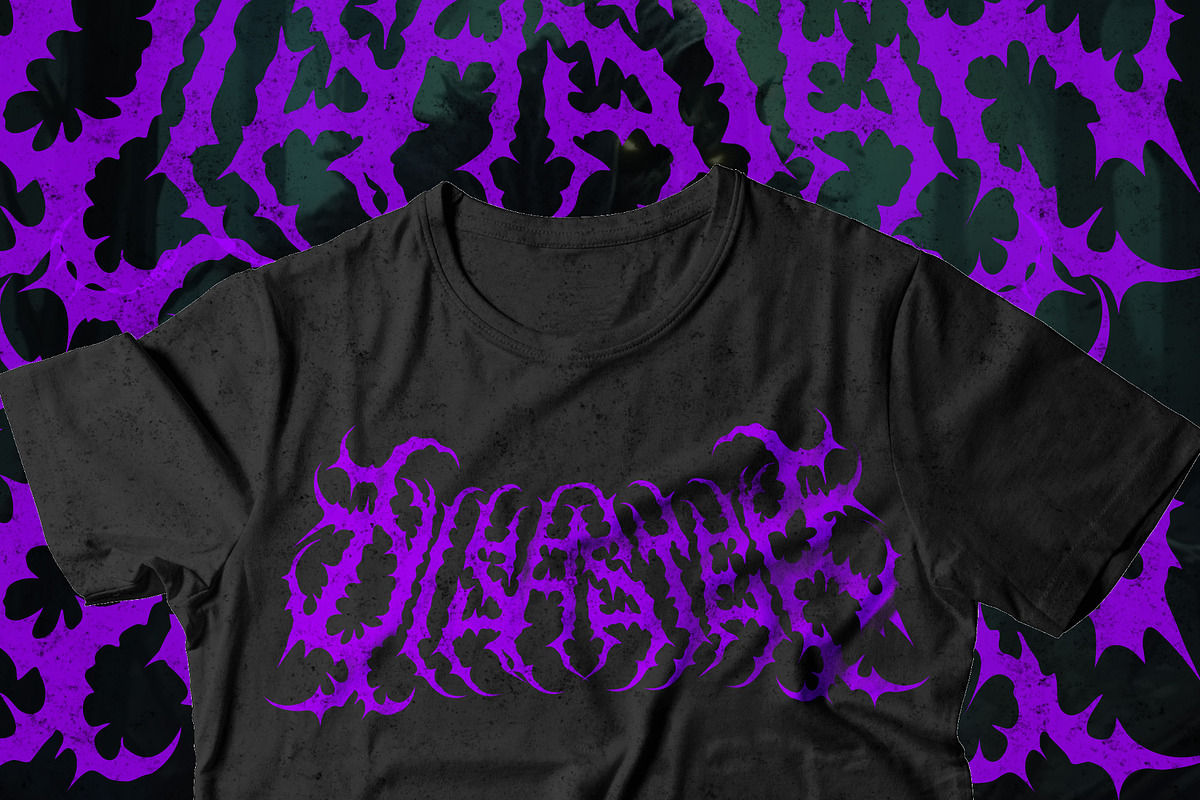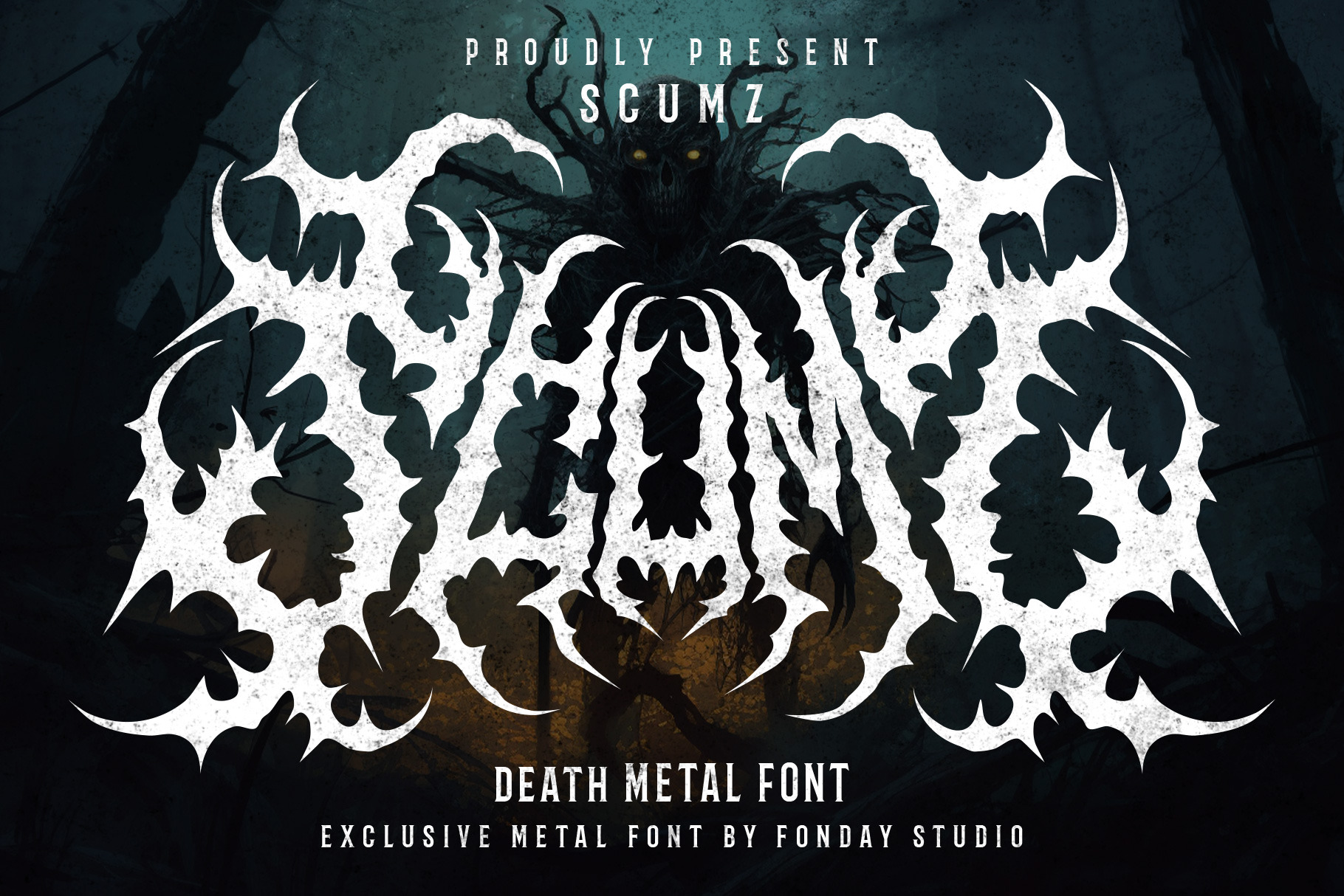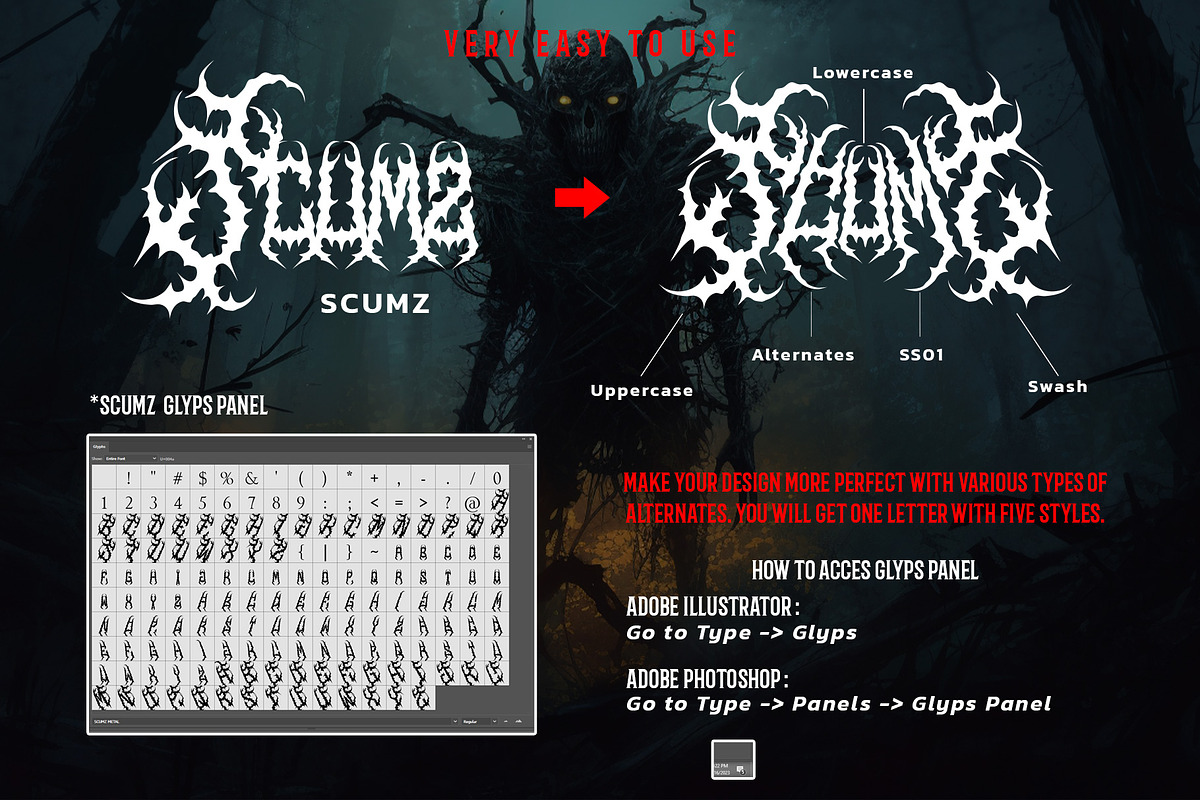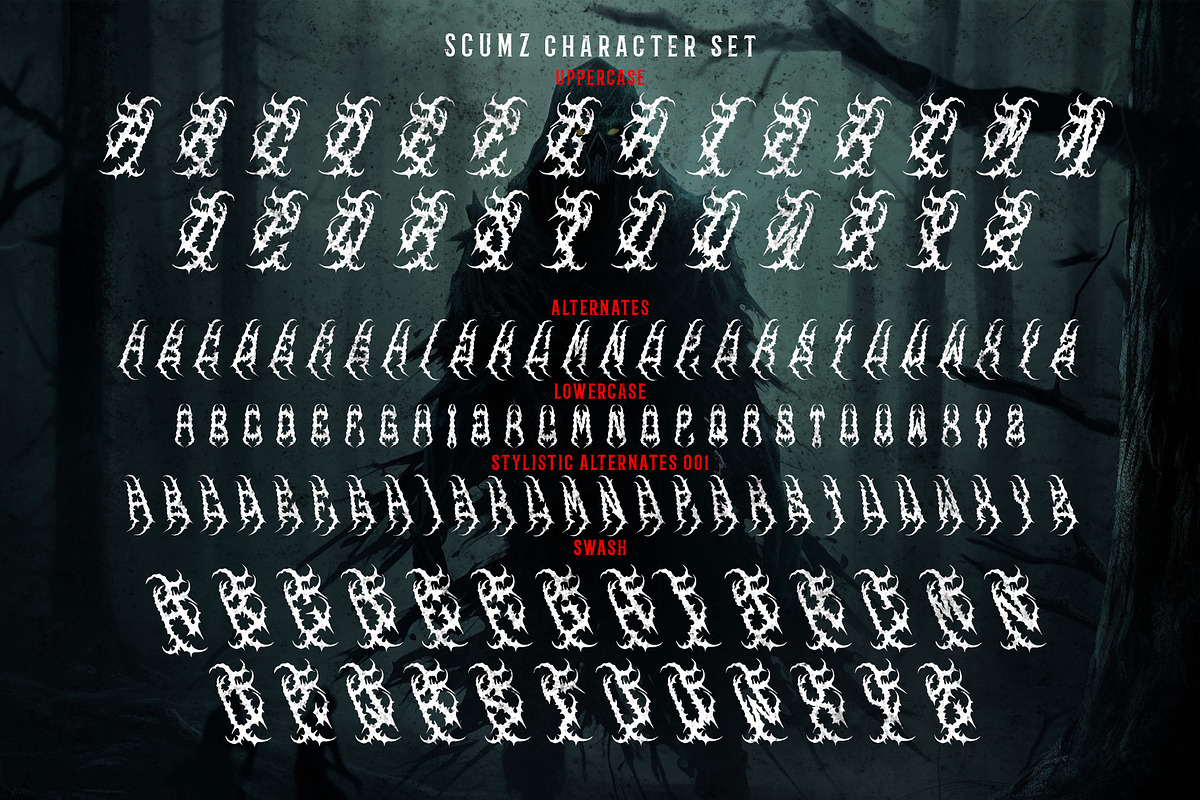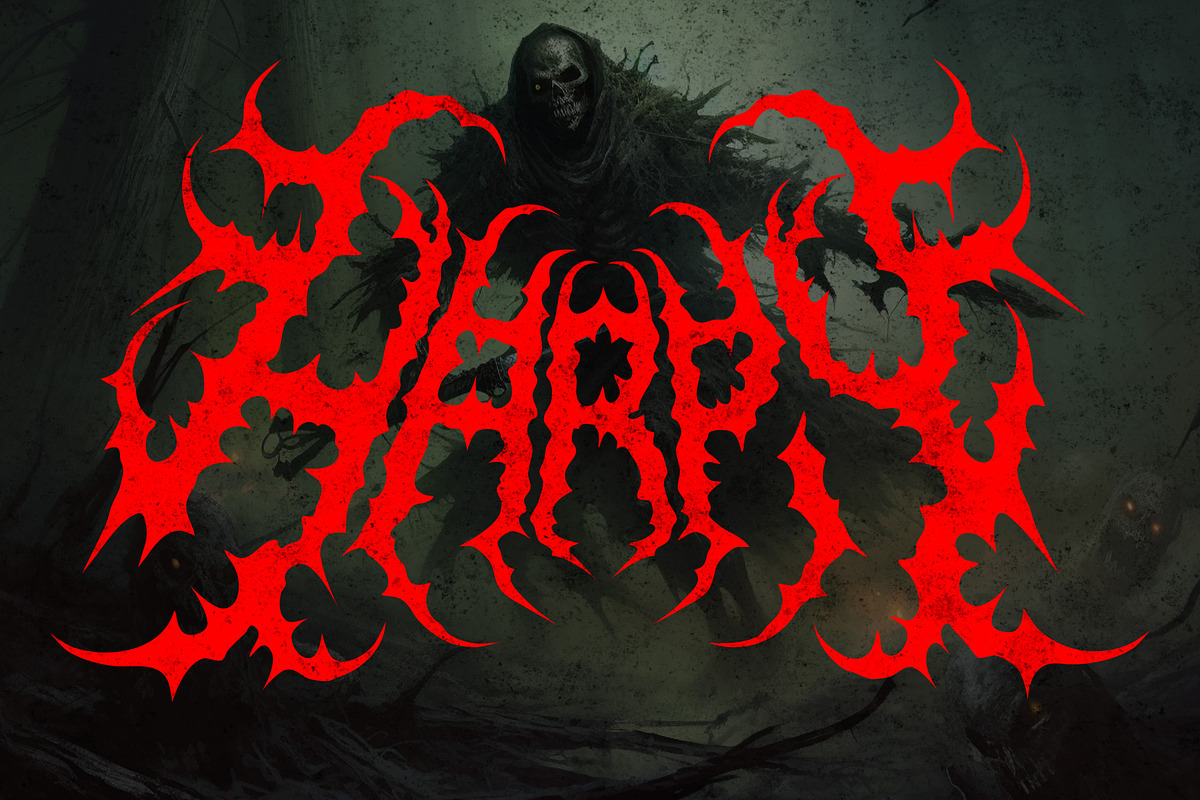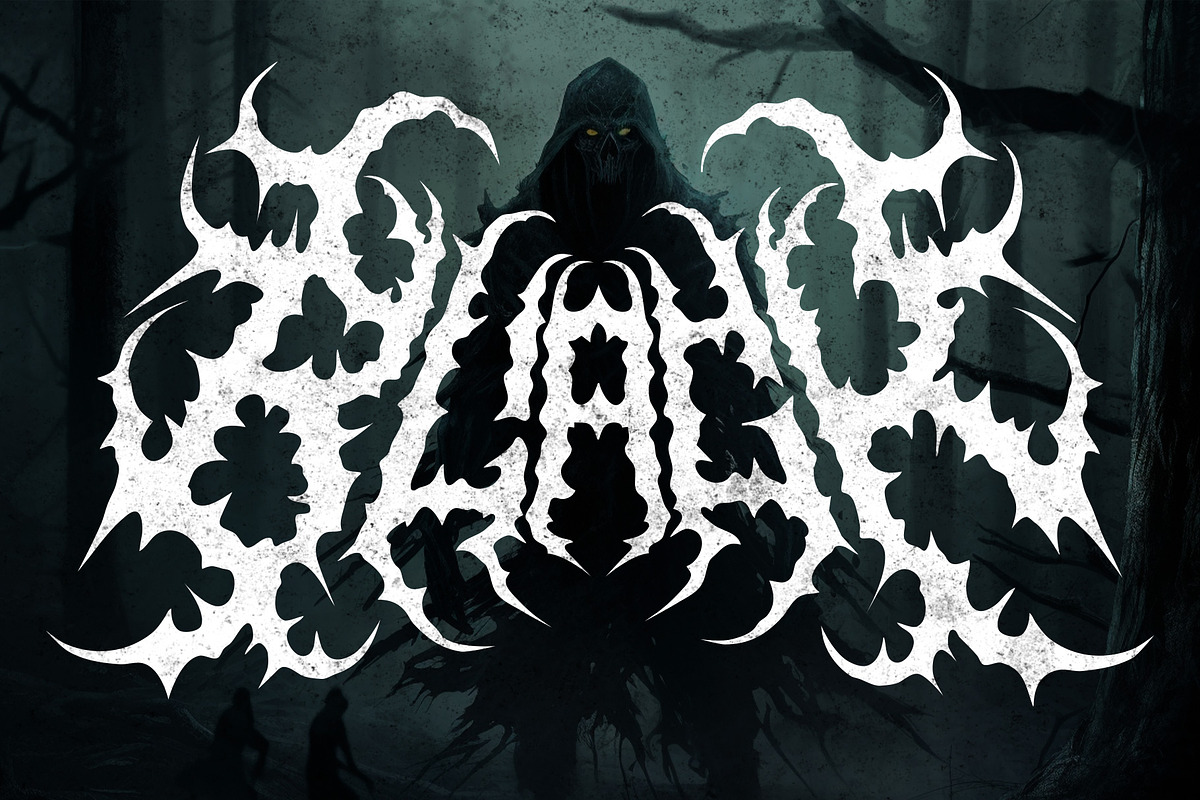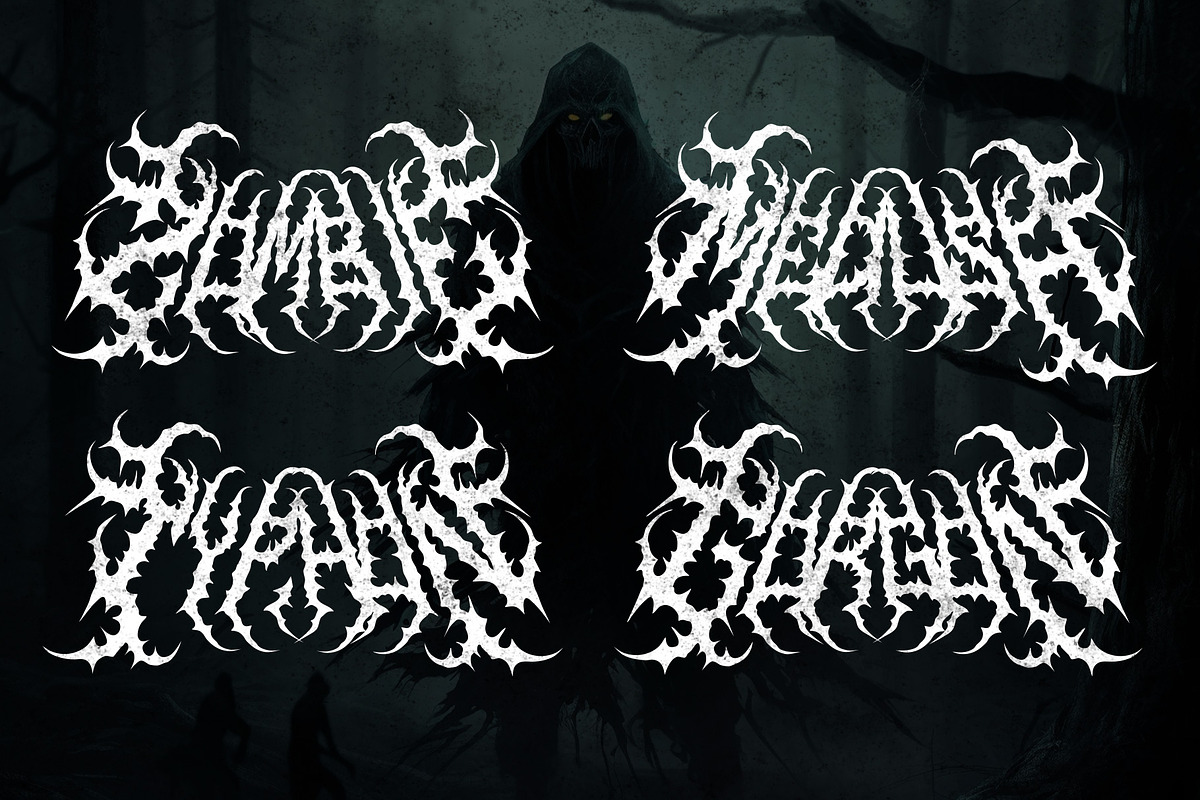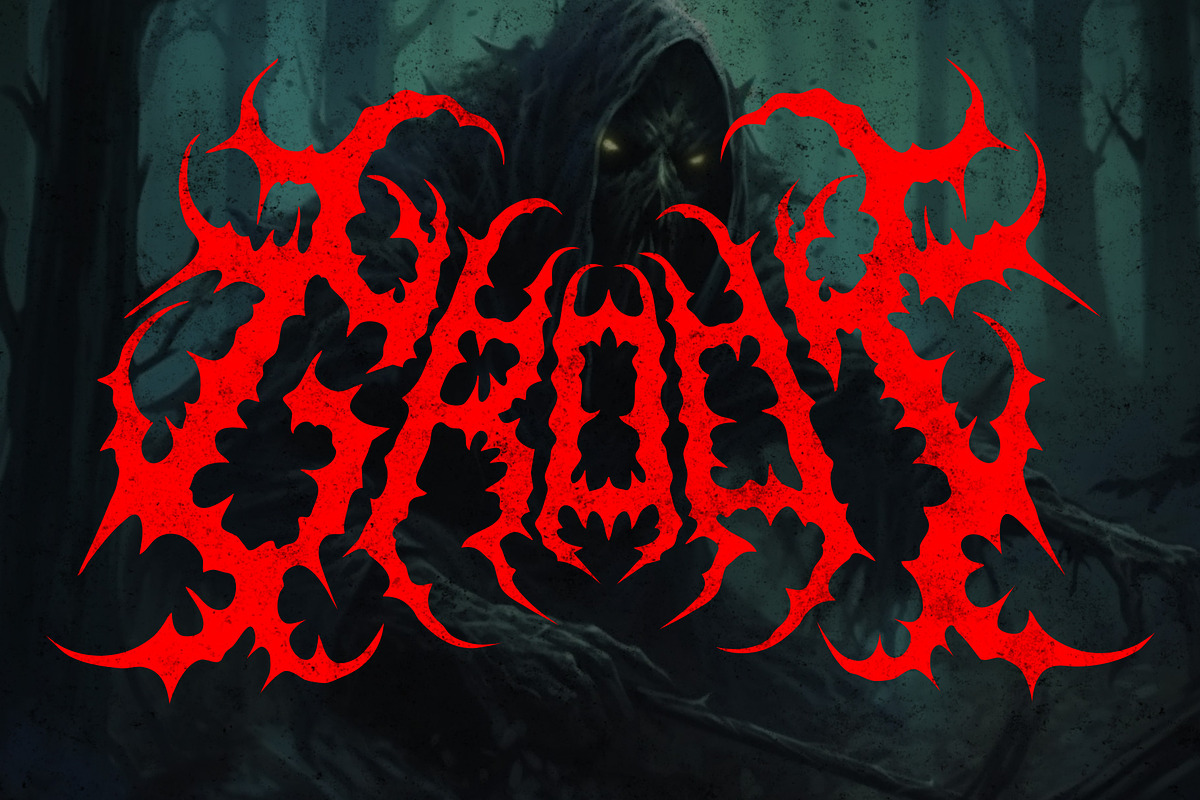
SCUMZ – Death Metal Font
Introducing SCUMZ, our font that embodies the rebellious spirit and explosive energy of metal music. With its bold and edgy design, SCUMZ is perfect for creating designs that scream defiance and power.
SCUMZ’s unique style will make your designs stand out, with its sharp and striking letterforms. Whether you’re creating album covers, band logos, or promotional materials for a metal band, SCUMZ will give your designs a memorable look that captures the essence of metal music.
- All Caps Character
- Stylistic Alternate